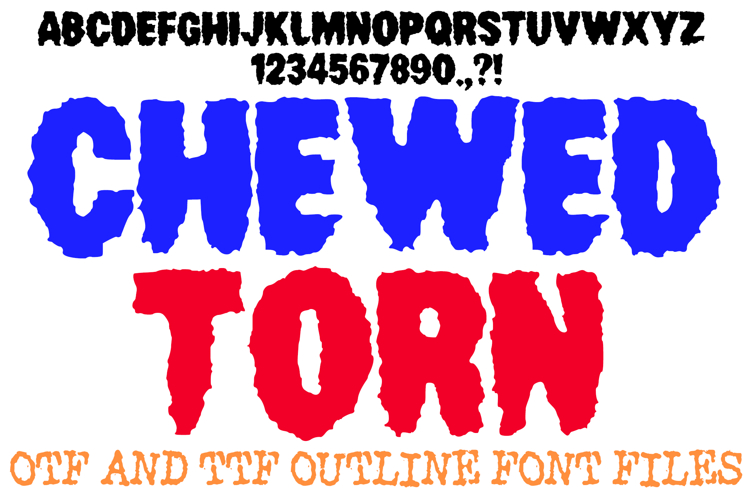
Inject some raw, aggressive energy into your projects with the Chewed Torn Font! This hand-drawn display alphabet features heavy, bold silhouettes with a unique "vibrating" or "shredded" texture along every edge, giving each character a weathered and raw appearance. It is an exceptional choice for edgy streetwear, punk rock posters, horror-themed branding, and high-impact social media headlines.
The "chewed" aesthetic creates a gritty, high-contrast look that mimics distressed stencil art or rough-cut stone. Whether you are designing a logo for an urban apparel brand or creating a title for a dark cinematic project, the Chewed Torn Font delivers a powerful, distorted vibe that is impossible to ignore.
Why Your Designs Will Hit Hard:
Distressed "Chewed" Edges: Each character features a rough, vibrating outline that suggests a torn or weathered texture.
Heavy Block Silhouettes: The thick, sturdy letterforms provide a massive visual anchor for your text.
Versatile Gritty Appeal: Works perfectly for grunge, metal, industrial, or street-style aesthetics.